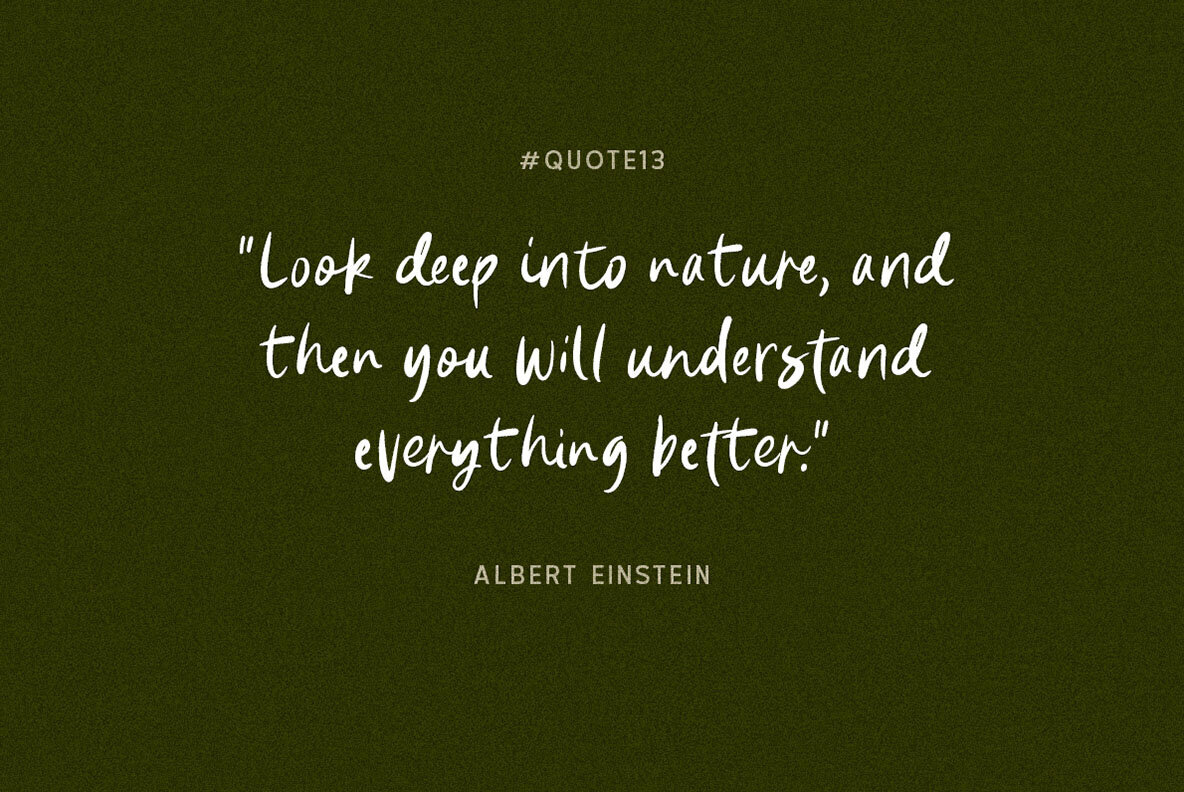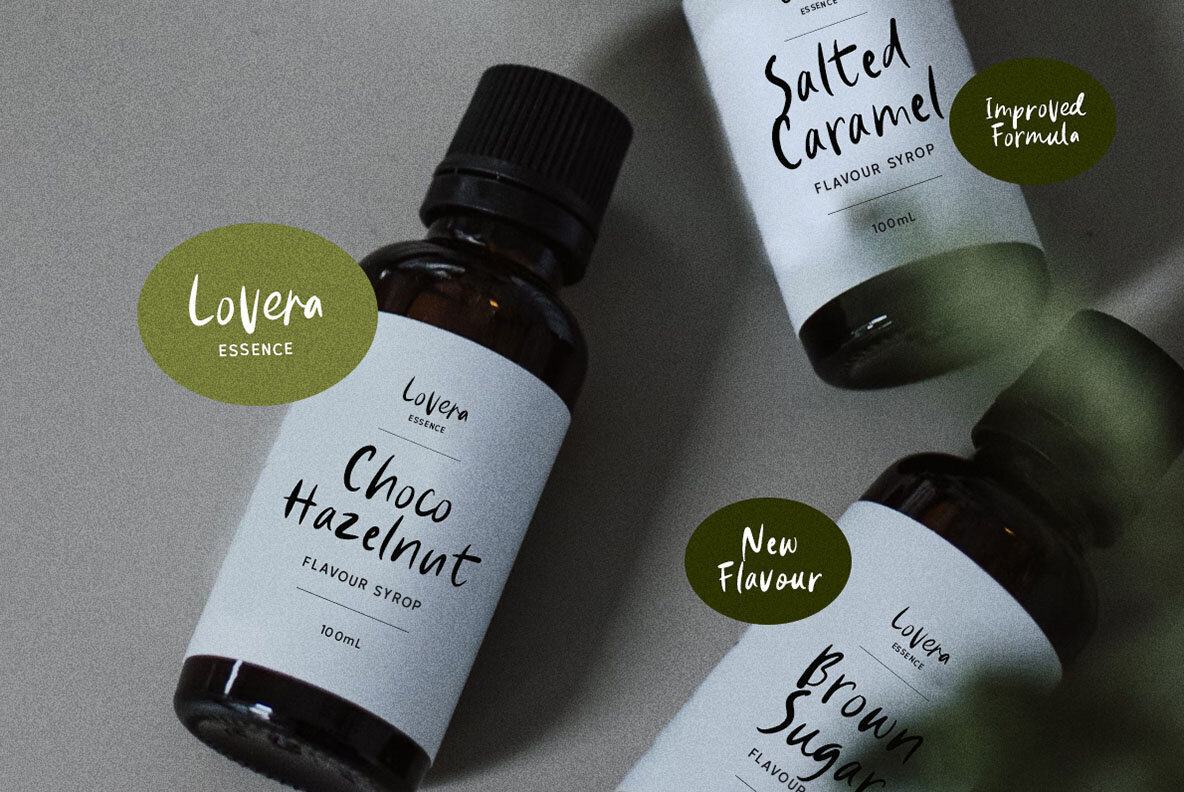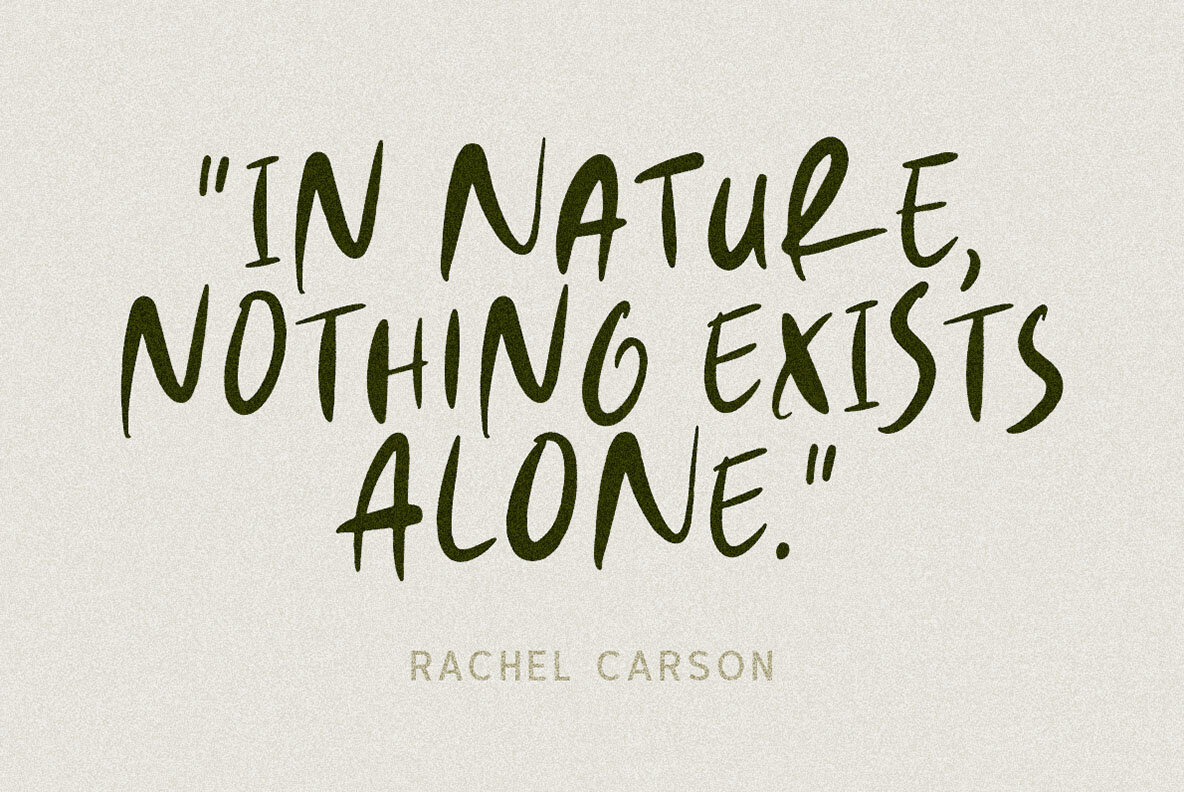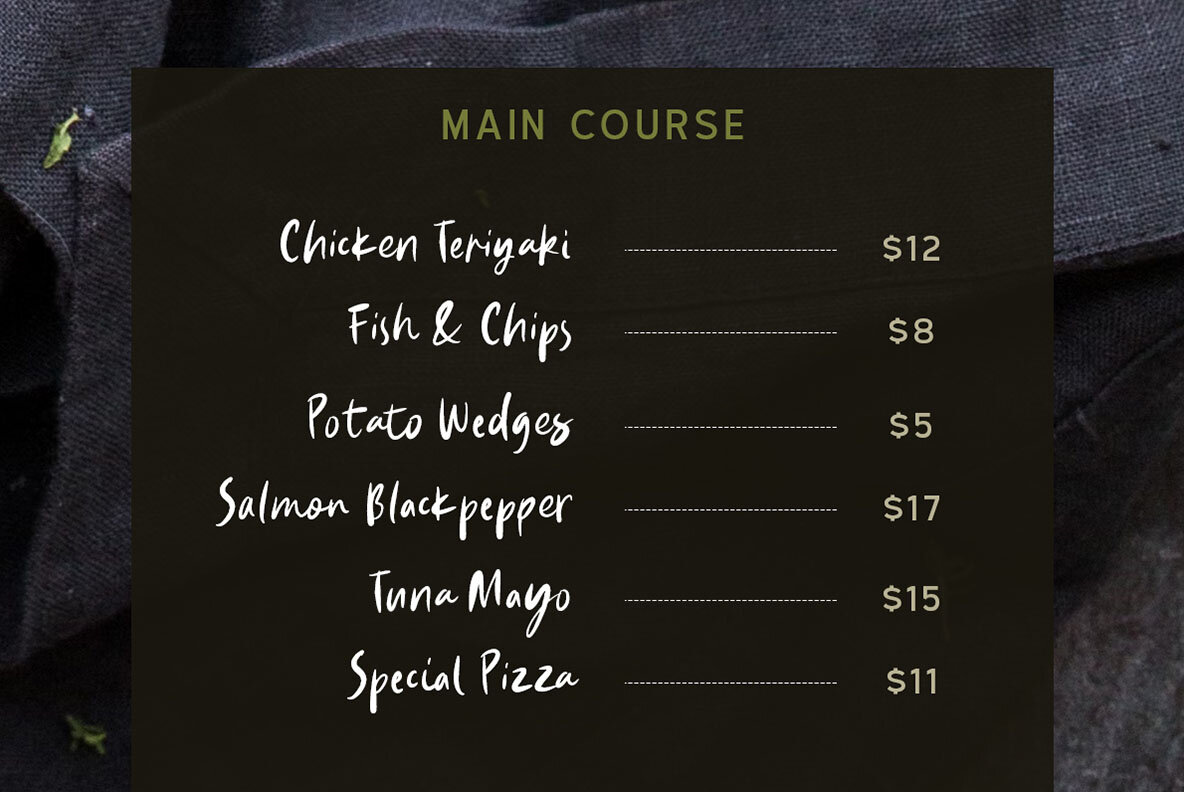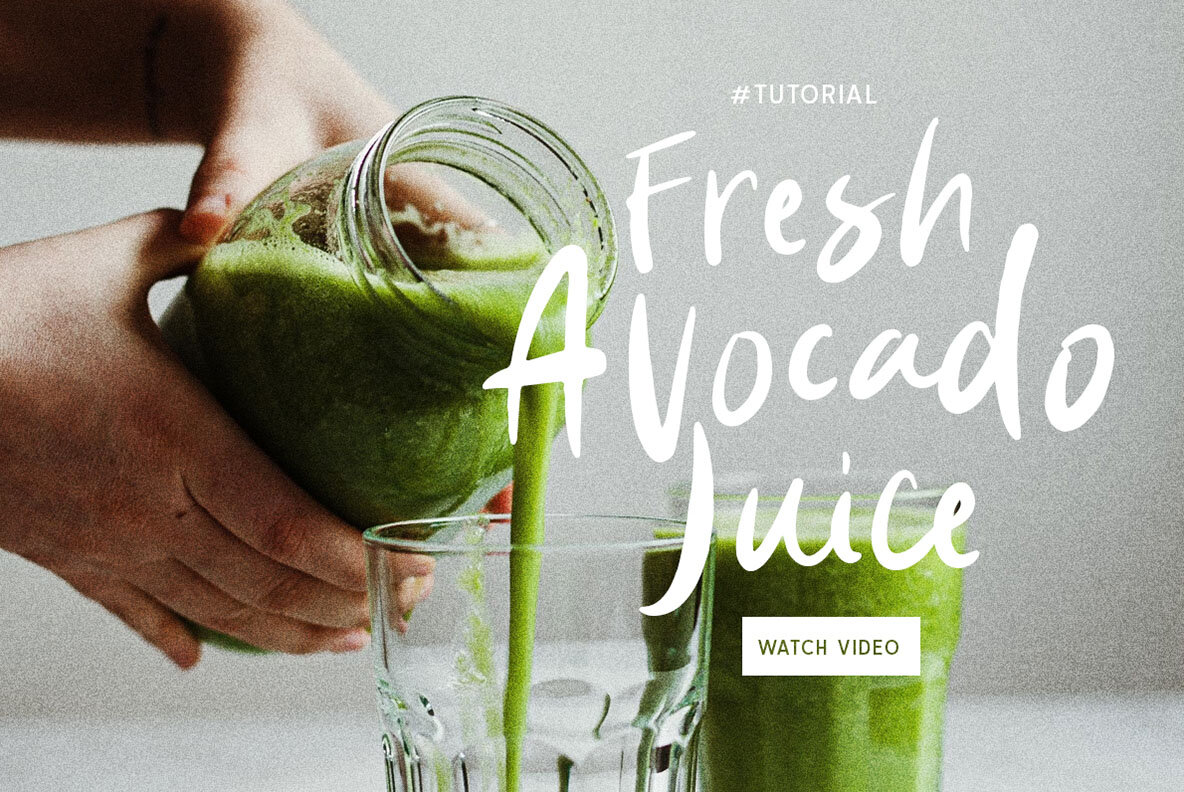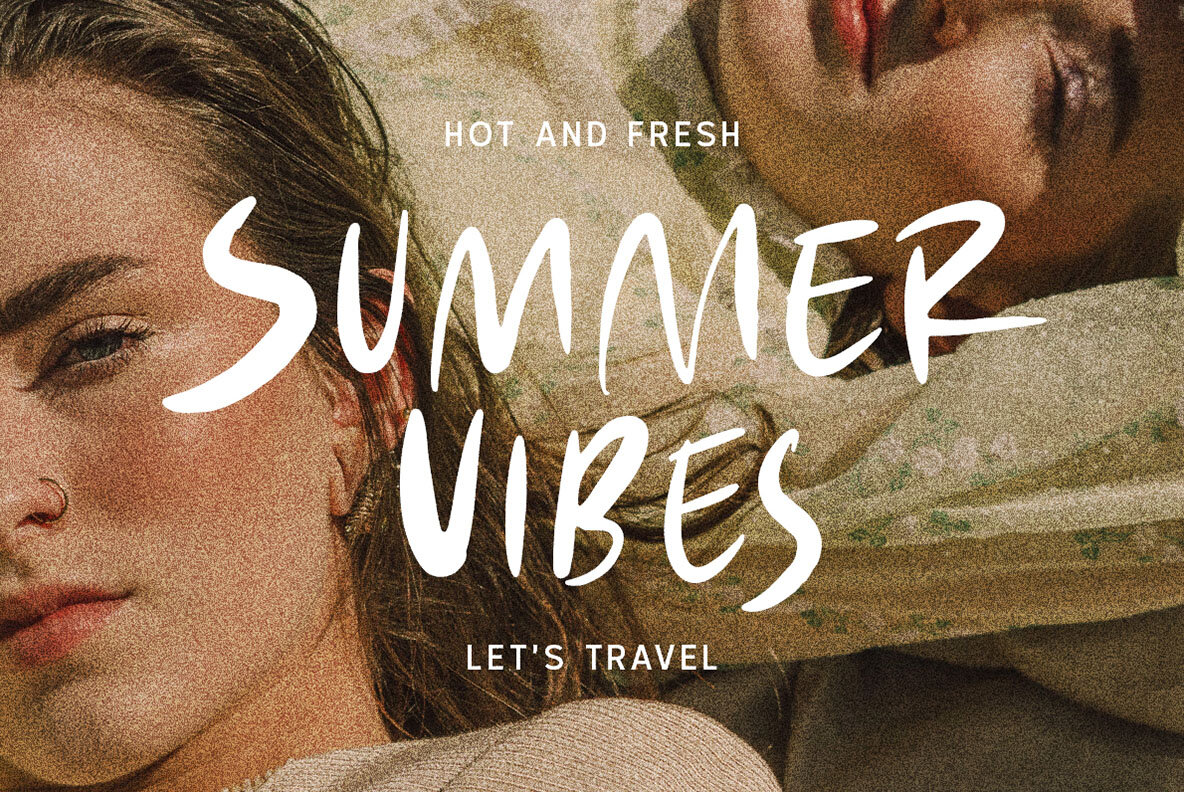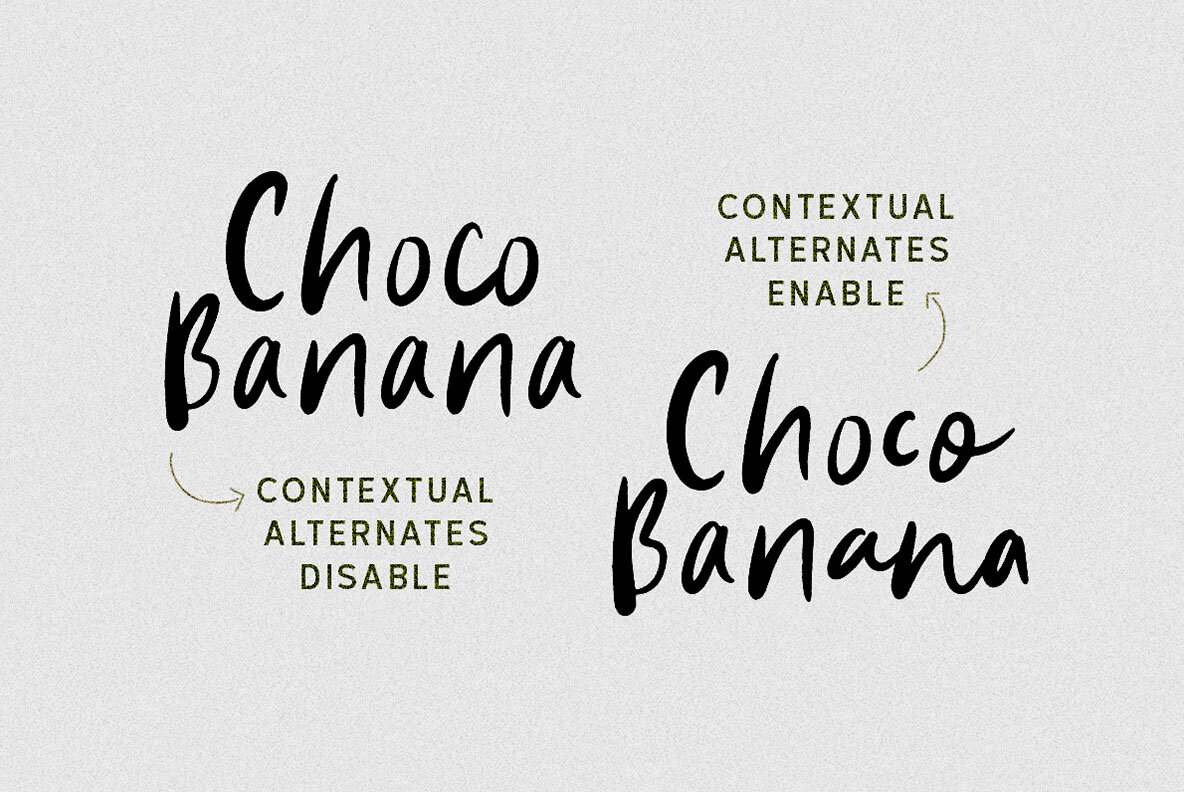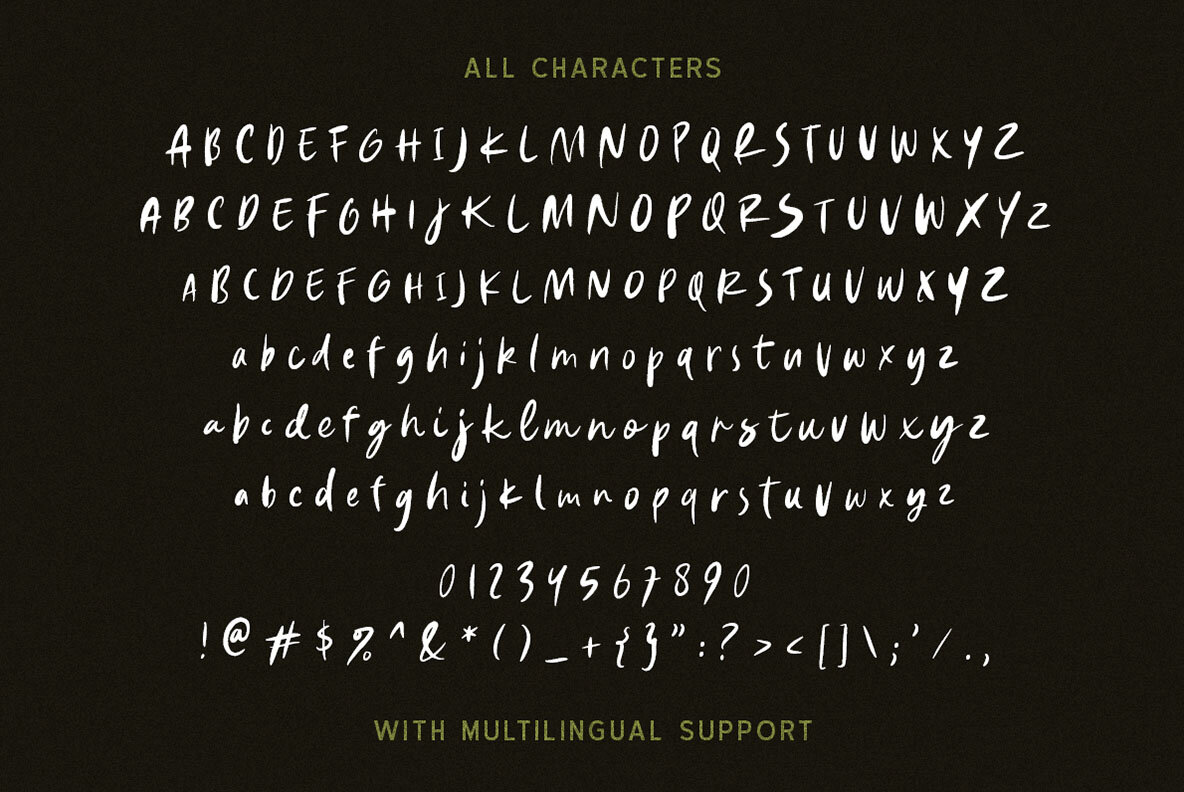
Natural Handwriting Font
Natural Handwriting Regular
Introducing Natural handwriting a casual font designed to bring a touch of authenticity and personal flair to your projects. With its textured brush look, this font exudes an organic and intimate feel, allowing your designs to evoke a sense of uniqueness and character. We highly recommend using a program that supports OpenType features and Glyphs panels like many of Adobe apps and Corel Draw, so you can see and access all Glyph variations.